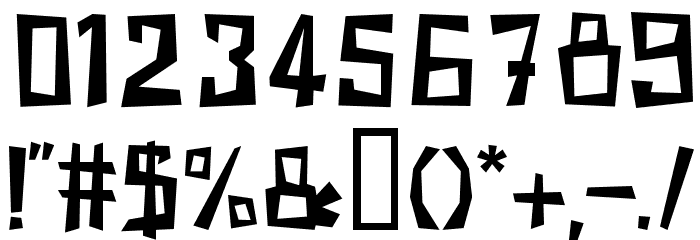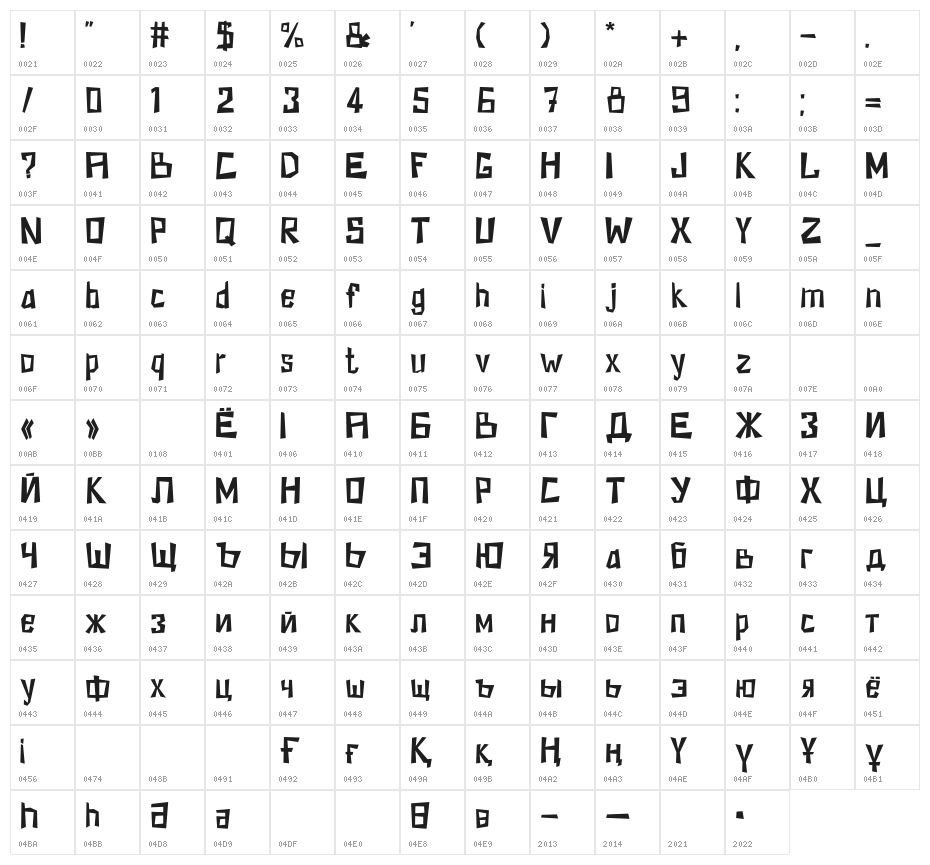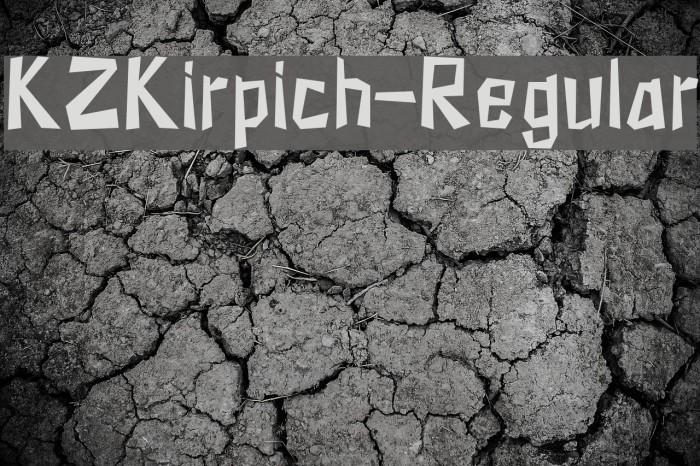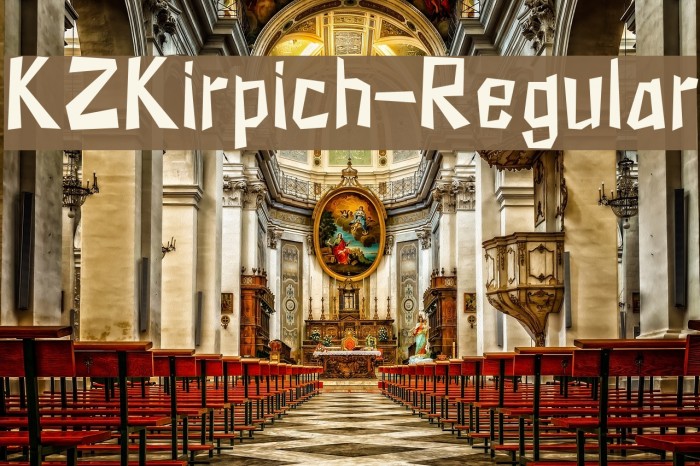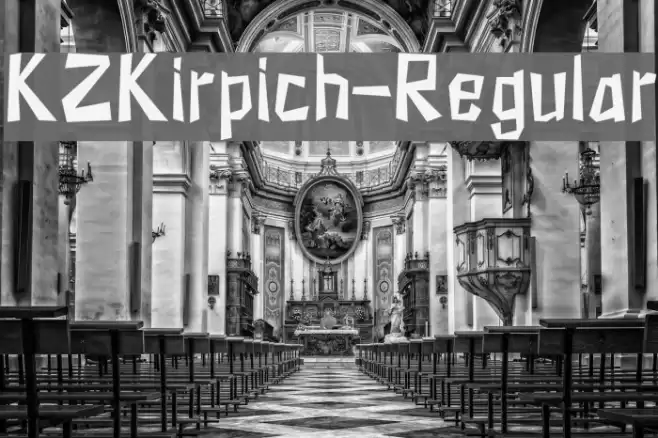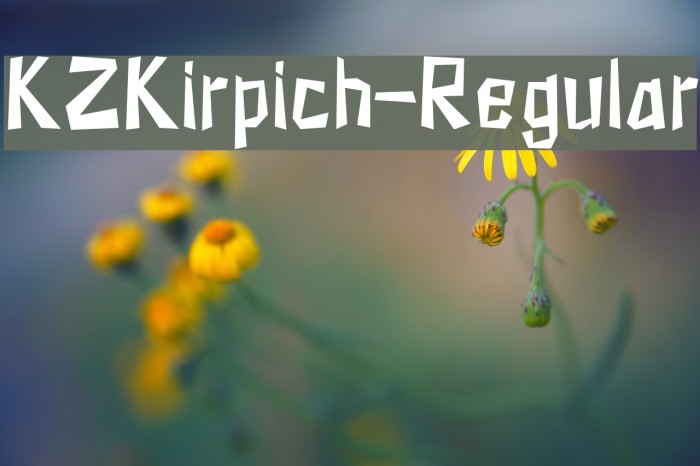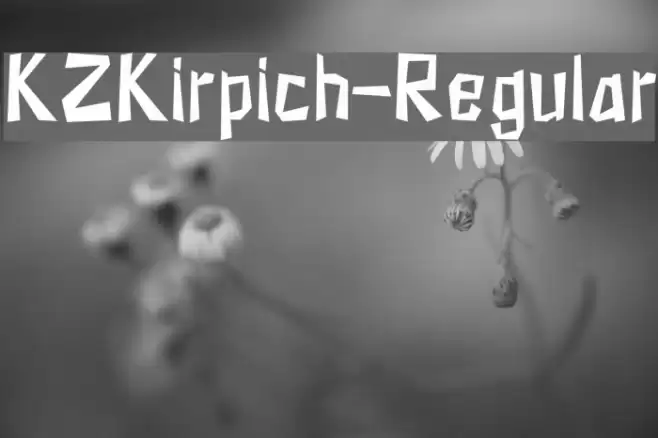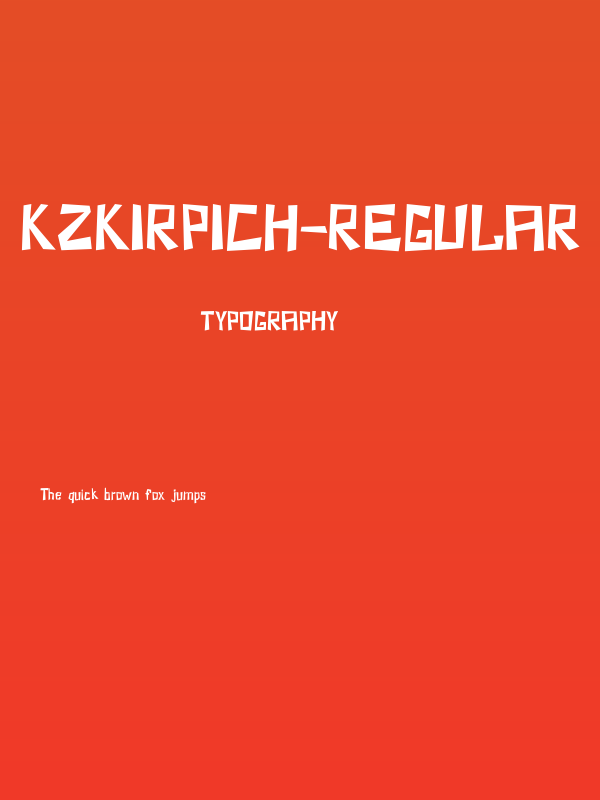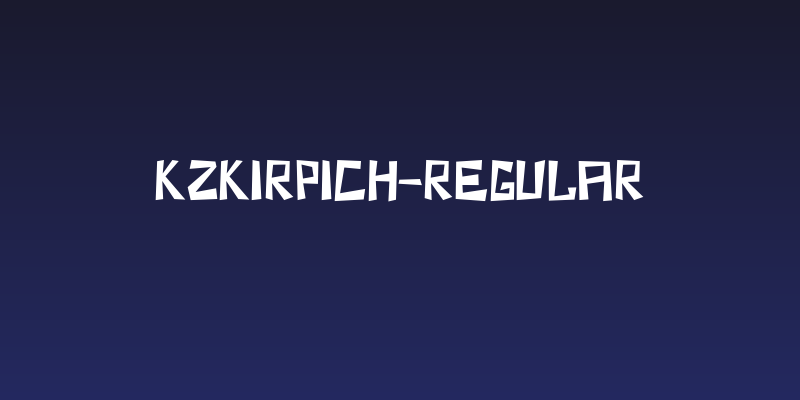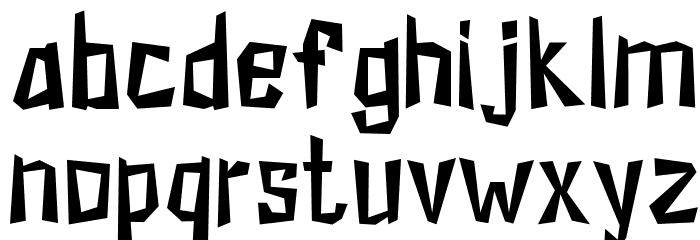
KZKirpich-Regular Font
KZKirpich-Regular Description
This font features a bold and angular design with a distinctly geometric and edgy appearance. The characters are crafted with sharp angles and irregular shapes, giving it a dynamic and modern feel. The uppercase letters are particularly striking, with a strong presence that commands attention. The lowercase letters maintain the same angular style, ensuring consistency throughout the typeface. Numbers and special characters are equally bold and follow the same design principles, making them stand out. This font is ideal for projects that require a bold and unconventional look.
| Proposed Projects | Suitable for posters, album covers, branding, and any project needing a bold, modern aesthetic. |